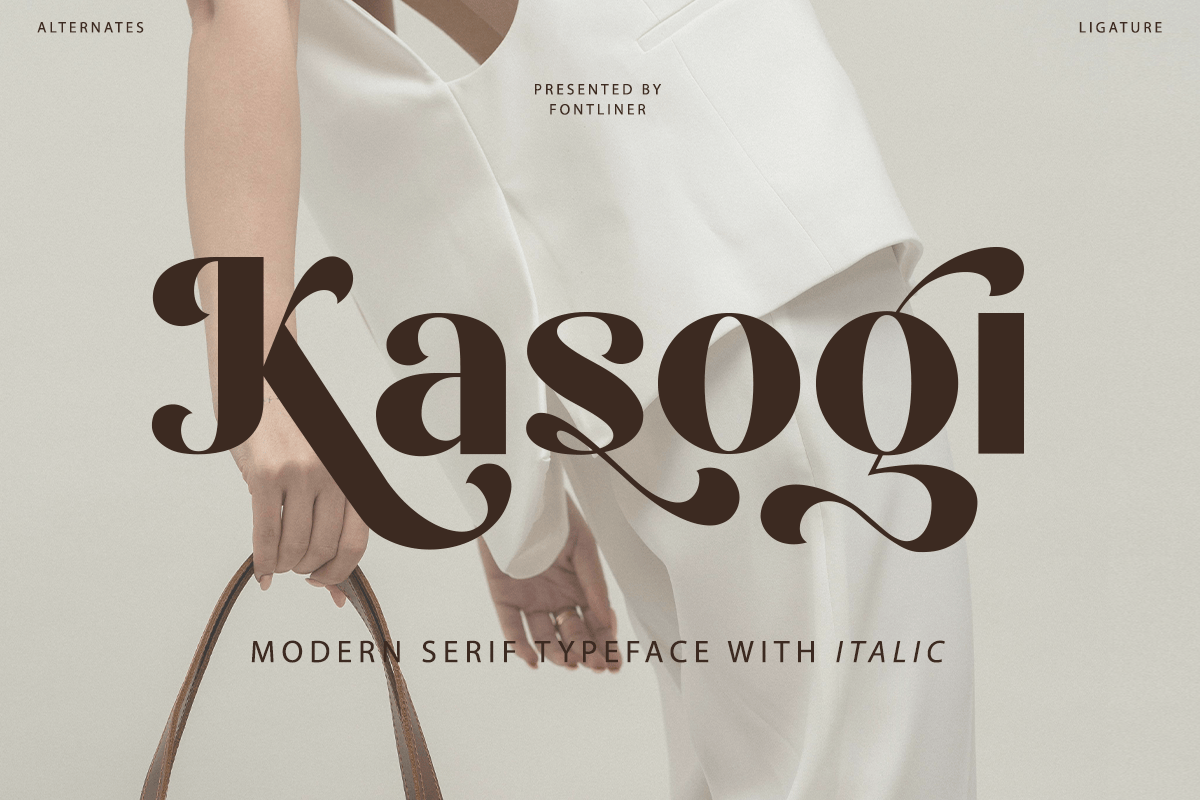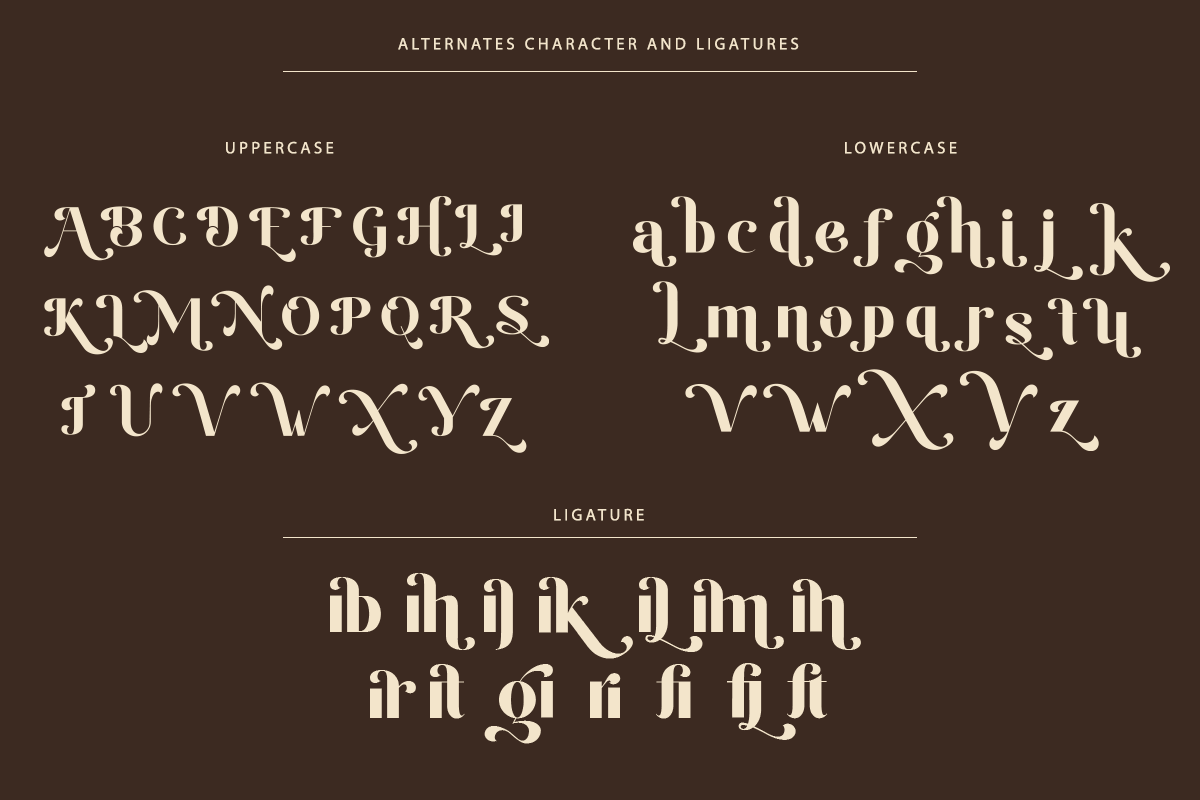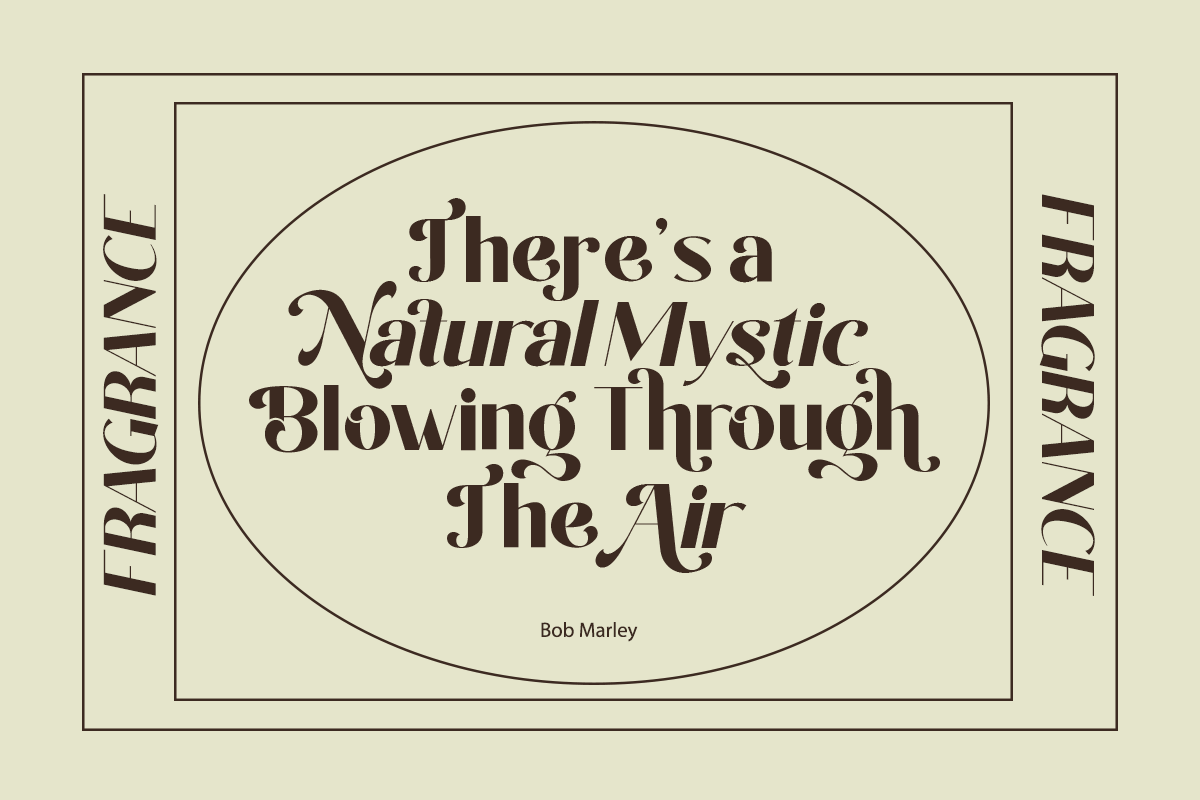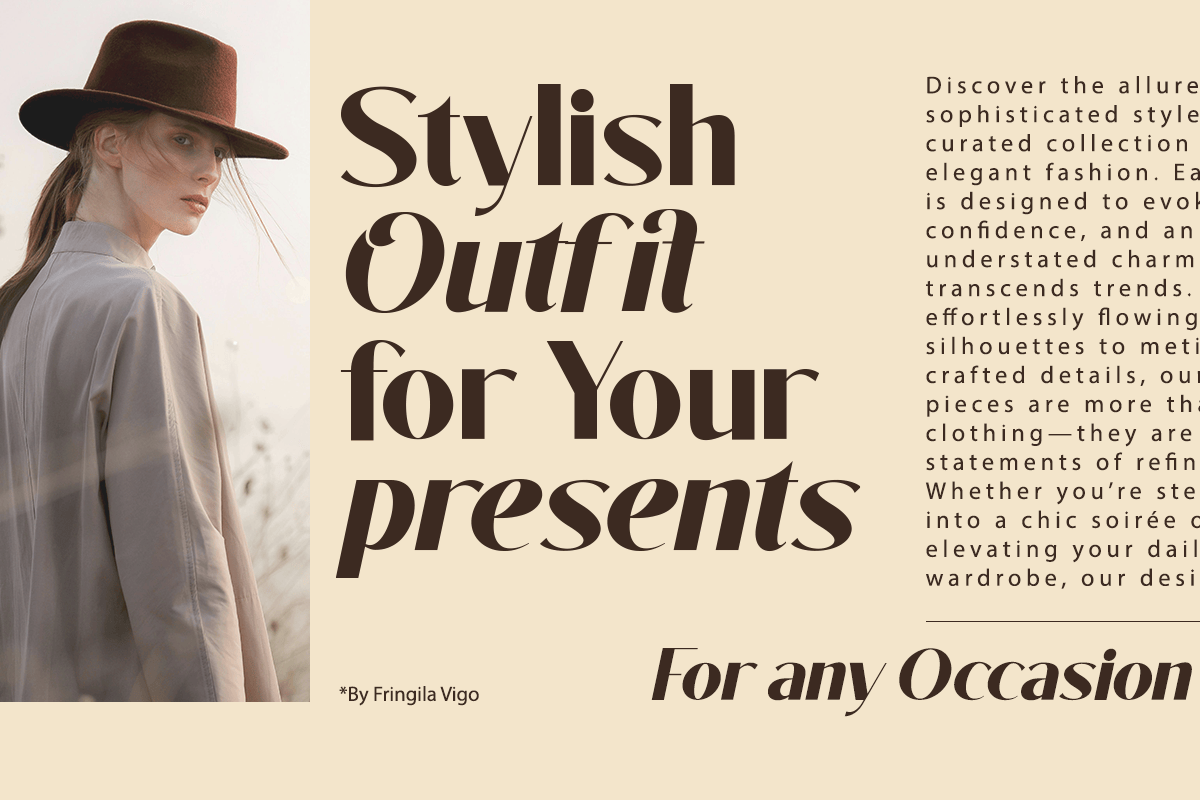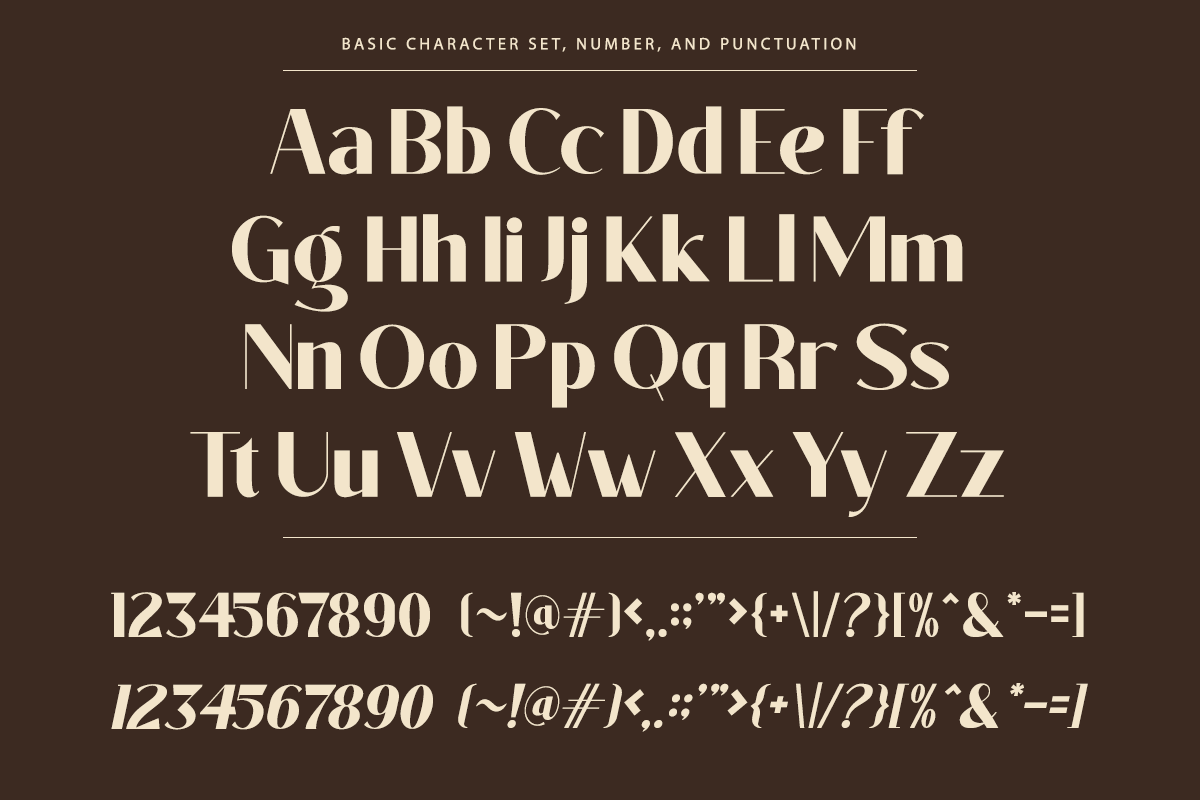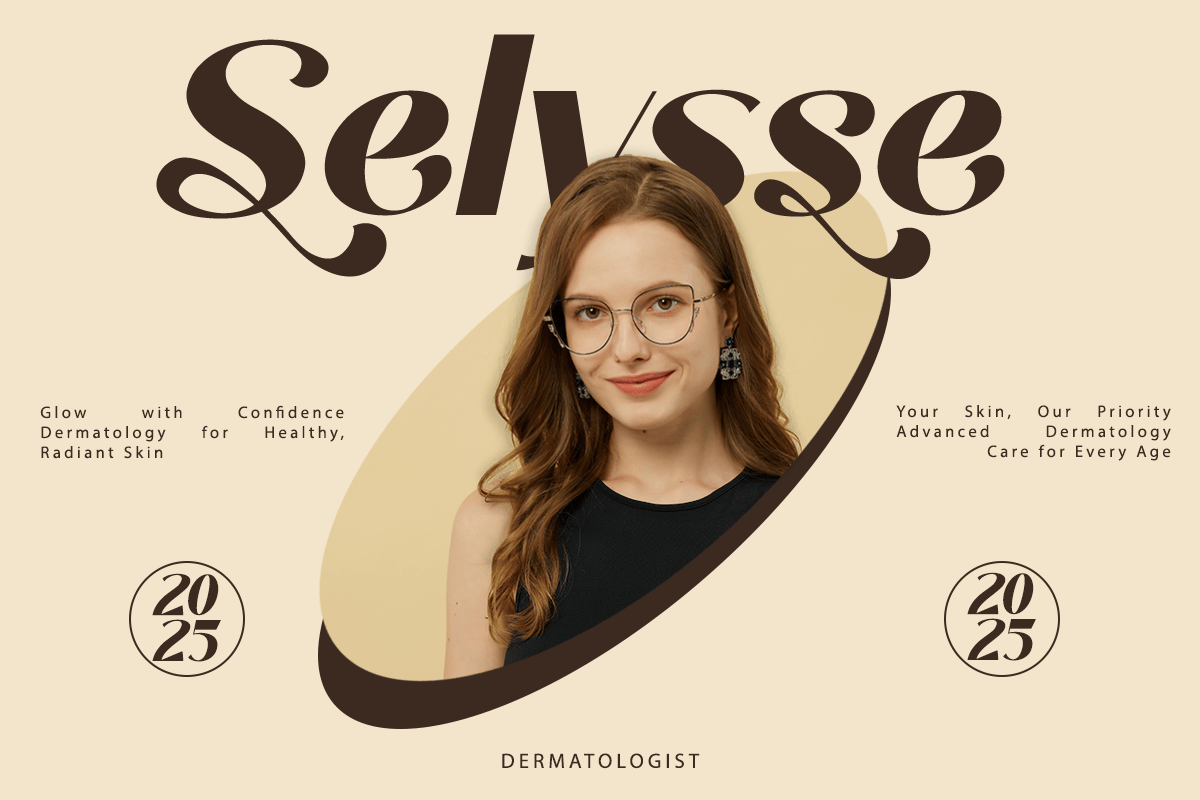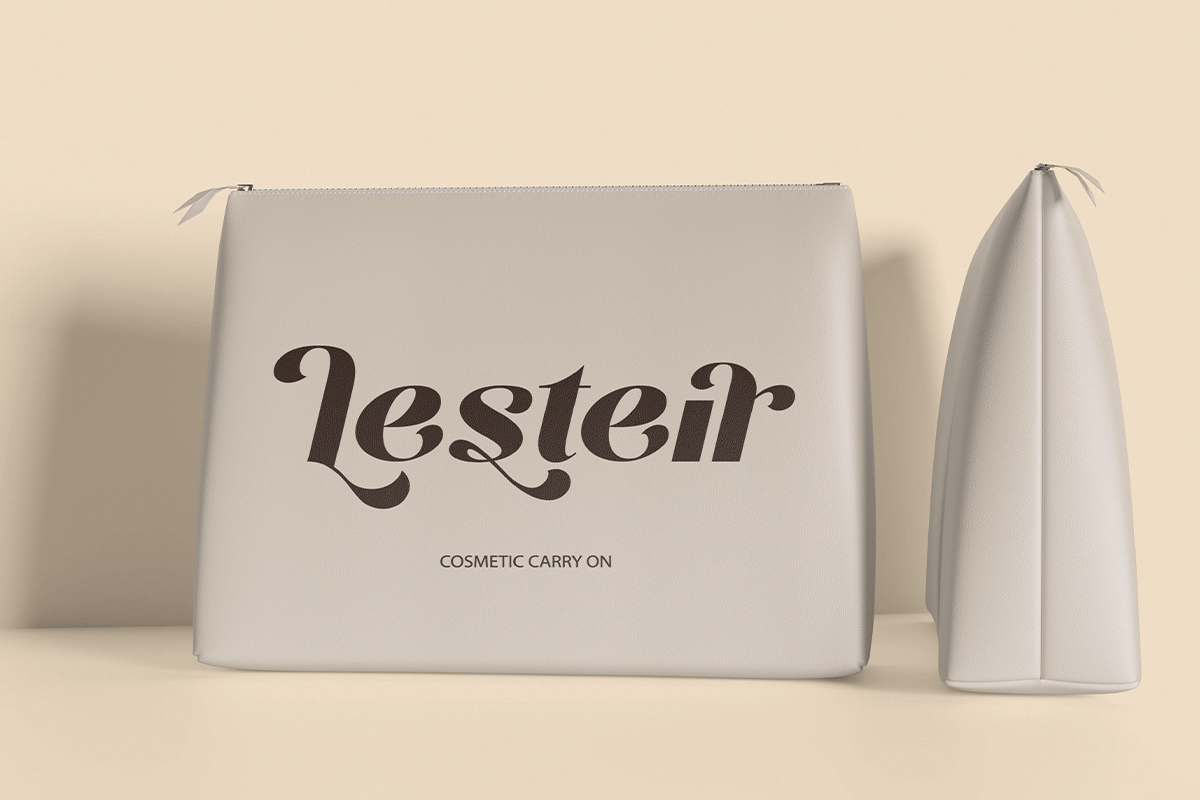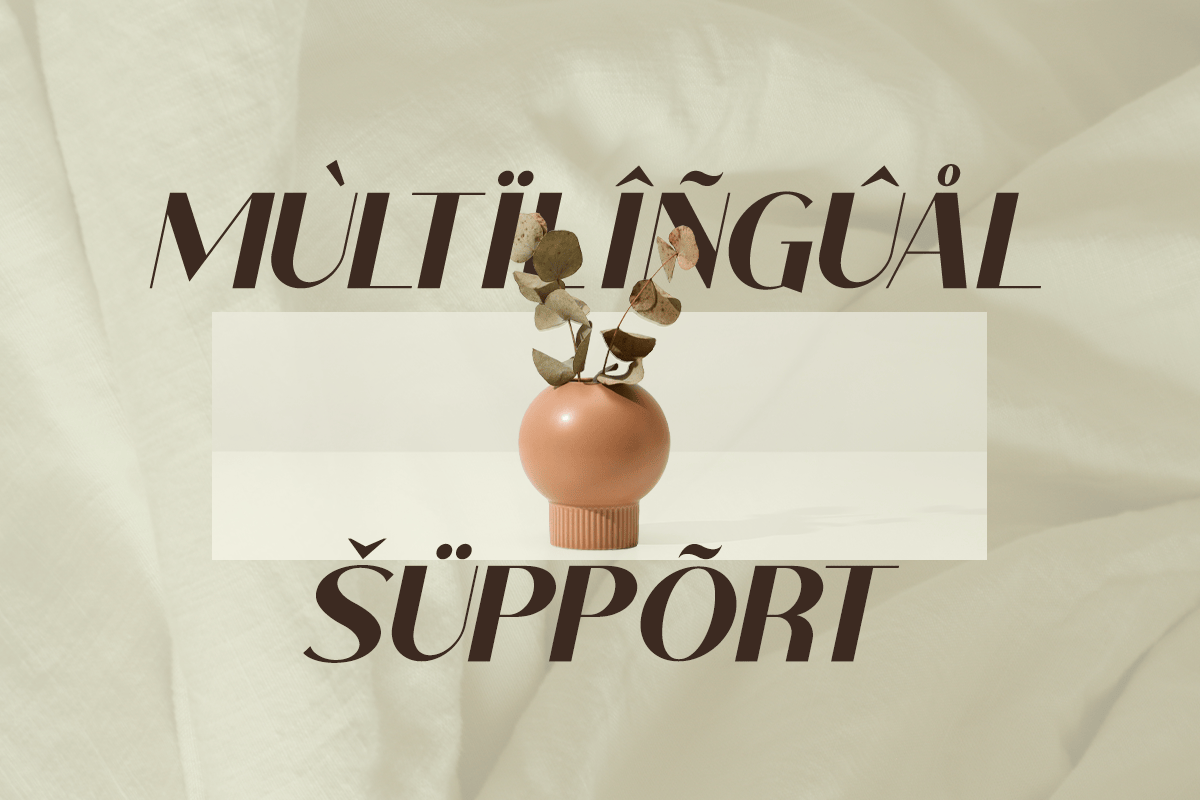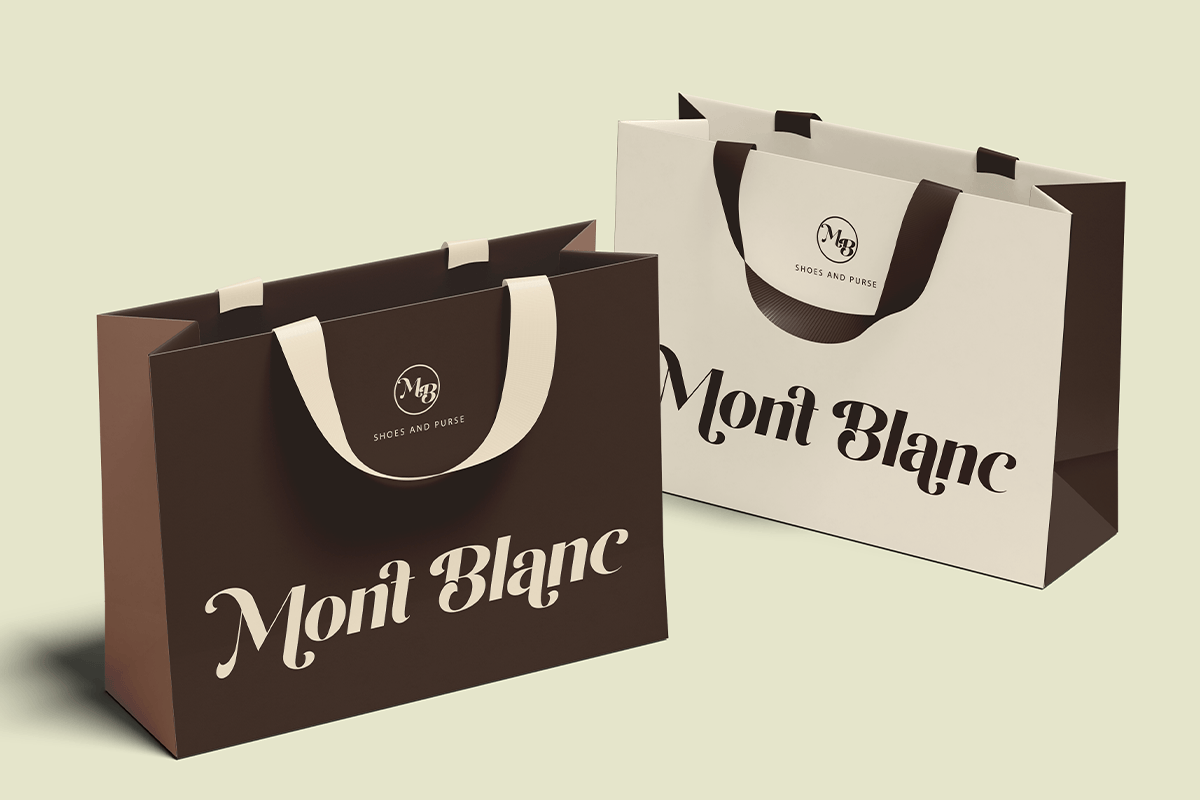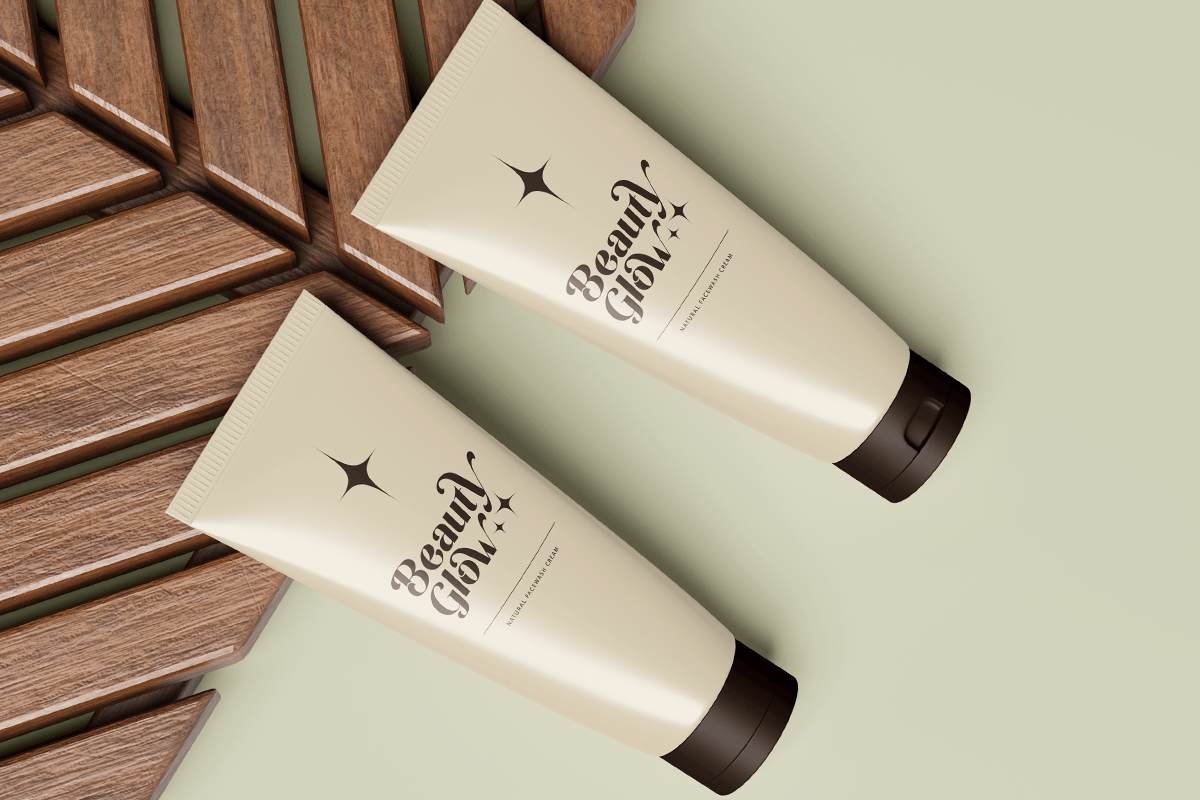
Kasogi – Modern Serif Font
Kasogi is a modern serif font that combines timeless sophistication with bold contemporary elegance. Featuring refined high-contrast letterforms, graceful curves, and beautifully crafted alternates, this typeface creates a luxurious visual identity that feels both classic and fashion-forward. Its balanced proportions and distinctive character make Kasogi ideal for premium branding and editorial typography.
Perfect for fashion labels, luxury branding, cosmetics, jewelry, beauty products, magazines, packaging, boutiques, wedding stationery, hotels, lifestyle brands, social media, and high-end marketing materials, Kasogi delivers exceptional versatility across both print and digital media. Whether you’re designing elegant logos, product packaging, magazine headlines, or sophisticated advertising campaigns, this font instantly elevates every composition with confidence and style.
Kasogi includes uppercase and lowercase characters, stylish alternates, ligatures, multilingual support, numerals, punctuation, and symbols, giving designers complete creative flexibility. From luxury product packaging and boutique branding to editorial layouts and premium presentations, Kasogi is the perfect serif font for creating elegant, memorable, and professional visual experiences.
– Stylistic alternates
– Uppercase, Lowercase & Ligatures